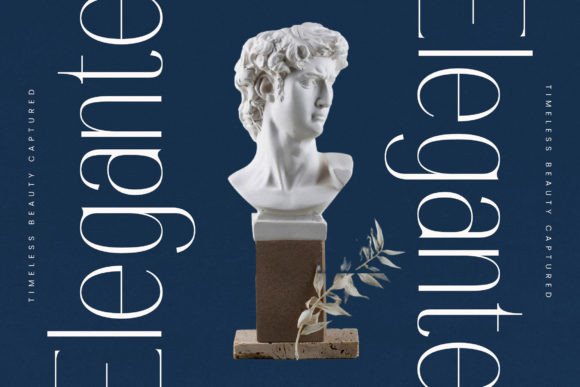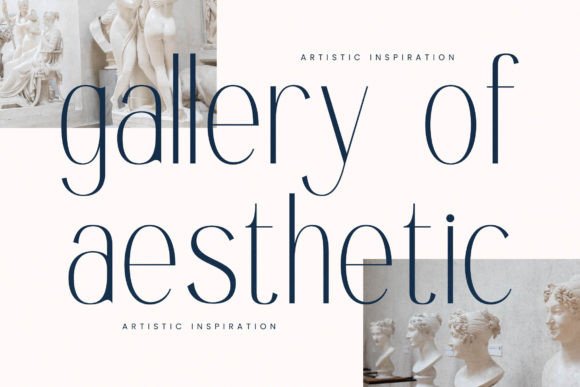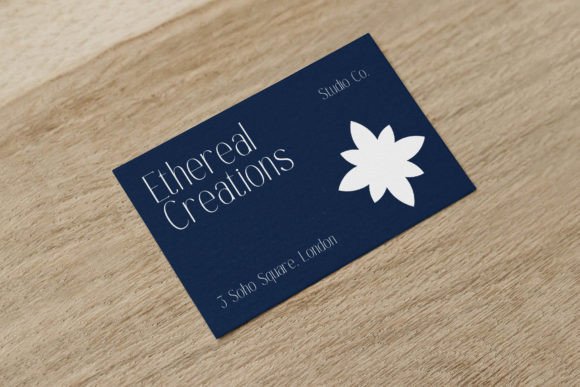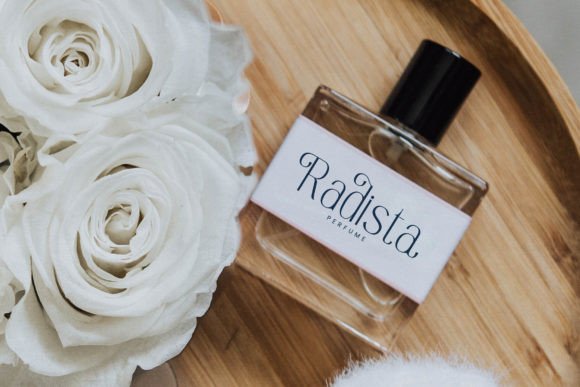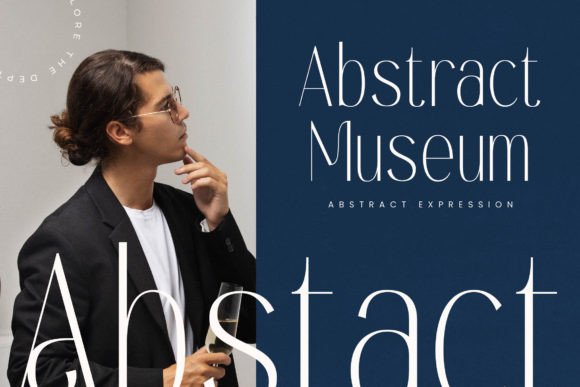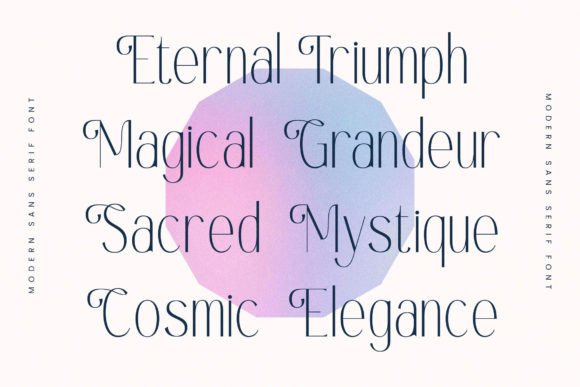
Discover the Elegance of Authentic Megarilo Font
In the realm of typography, a font can make or break the aesthetic appeal of a design. For those seeking a modern and stylish serif font that embodies the perfect blend of sophistication and contemporary flair, Authentic Megarilo is an exceptional choice. This versatile font is designed to elevate editorial designs, luxury branding, and web typography with its unique charm and elegance.
The Distinctive Features of Authentic Megarilo
Authentic Megarilo stands out with its clean lines and subtle curves, creating a harmonious balance that results in a truly contemporary look. Its serif design adds a touch of classic sophistication, while the clean and minimalist aesthetic ensures it remains fresh and modern. This font is meticulously crafted to bring a sense of luxury and refinement to any project.
Perfect for Editorial Designs
Editorial designs require a font that commands attention while maintaining readability. Authentic Megarilo excels in this area, offering a sophisticated presence that enhances the overall composition. Whether you’re working on a magazine, a blog, or any form of editorial content, this font ensures your text is not only visually appealing but also engaging and easy to read.
Luxury Branding and Authentic Megarilo
When it comes to luxury branding, the choice of font is crucial in conveying the brand’s message and aesthetic. Authentic Megarilo, with its elegant and refined appearance, is perfect for brands looking to communicate sophistication and high-end quality. Its unique style helps in creating a distinctive brand identity that stands out in the competitive market.
Enhancing Web Typography
Web typography plays a vital role in user experience and engagement. Authentic Megarilo is optimized for digital use, ensuring that your website or digital content looks stylish and professional. Its clarity and readability on various devices make it an excellent choice for web designers looking to add a touch of elegance to their digital projects.
Why Choose Authentic Megarilo?
- Modern and Stylish: Offers a contemporary look with its clean lines and subtle curves.
- Versatile: Suitable for editorial designs, luxury branding, and web typography.
- Sophisticated Presence: Enhances every composition with its elegant and refined appearance.
- Easy to Read: Ensures excellent readability, making it perfect for extensive text.
How to Use Authentic Megarilo in Your Projects
- Pair it with Simplicity: Let the font be the focal point by pairing it with simple backgrounds or design elements.
- Experiment with Sizes: Play with different font sizes to create visual hierarchy and emphasize key points.
- Customize: Don’t hesitate to experiment with font weights and styles to match your project’s tone and aesthetic.
Authentic Megarilo is more than just a font; it’s a design statement. Its modern elegance, combined with its versatility and sophistication, makes it an invaluable asset for designers and crafters. Whether you’re aiming to elevate your editorial designs, give your brand a luxurious feel, or enhance your web typography, Authentic Megarilo is the perfect choice. Embrace the elegance and sophistication that Authentic Megarilo brings to your creative projects and witness the transformative power of typography.